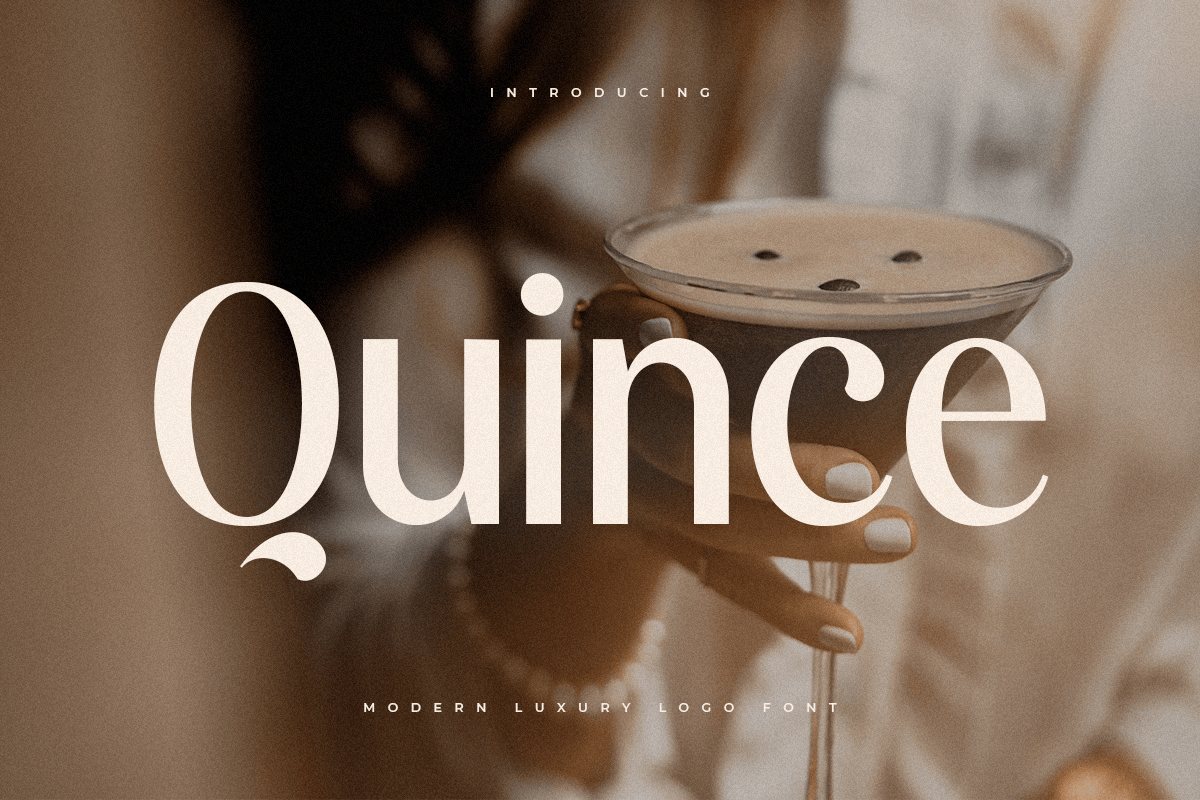
Quince
-Modern Luxury Logo Font
Quince
A Luxury Elegant Beauty font that we created special for elegant branding needs, with unique shape will be ready to add value of your brand. It so nice to leverage designer or product owner that need solutions to make their design look more stylish and modern. And specially for Quince font, We prepared any characters to help you create unlimited variations for your creative needs.